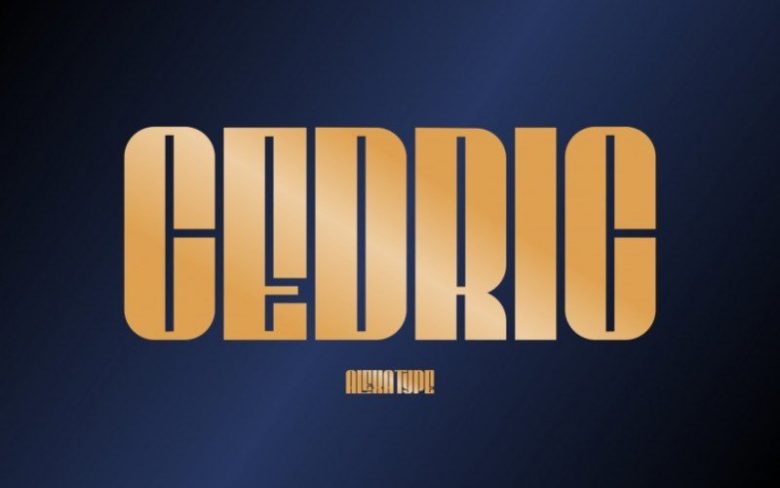
CEDRIC Font is a new display font specifically designed for the film and television industry. It’s strong enough to work completely on it’s own, but it’s also not too overpowering to supplement additional text or graphics.
CEDRIC Font is suitable typeface for various purposes like logotype, signage, label, poster, dropcap, titles, letterhead, book cover and etc. This font is free for PERSONAL USE.